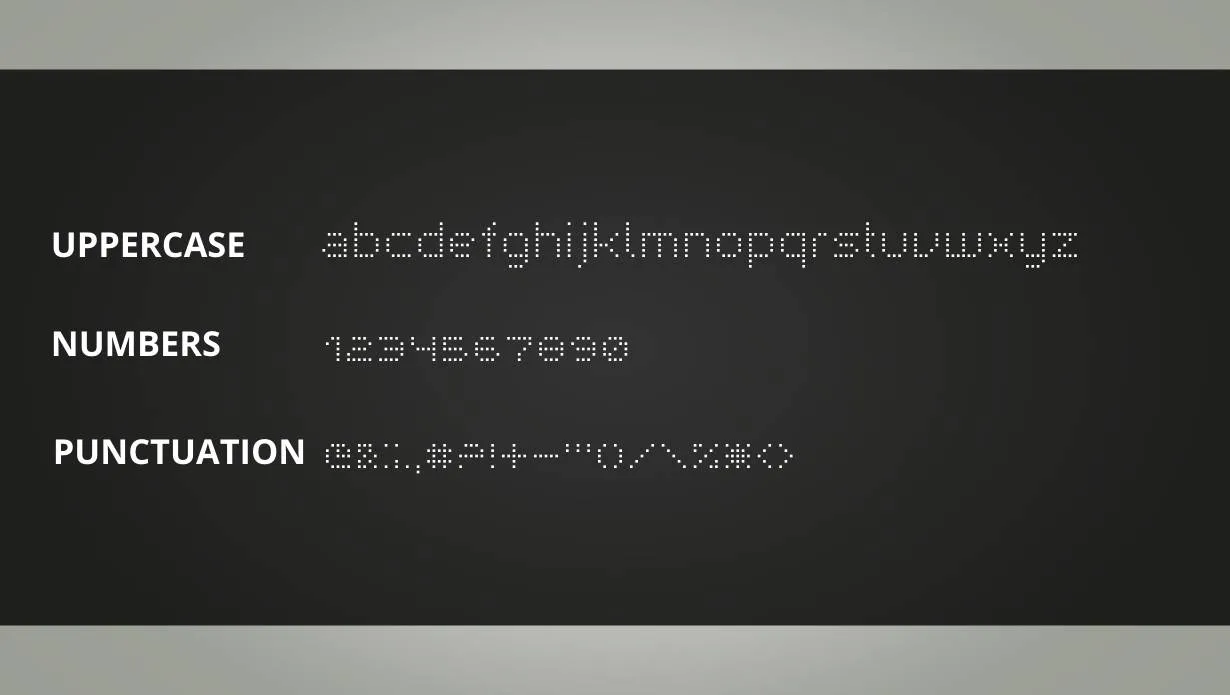
Superpoint Font is a display typeface created by Jonathan Barnbrook and released through his foundry Virus Fonts in 2001. The font is best known for its use in the branding of the film Superman Returns.
The shapes of the letters are based on Supergrotesk, a typeface designed by Erik Spiekermann in the 1970s. However, Superpoint Font has a more angular, modern look.
View of Superpoint Font
| Name | Superpoint Font |
| Designer | Jonathan Barnbrook |
| Style | Display |